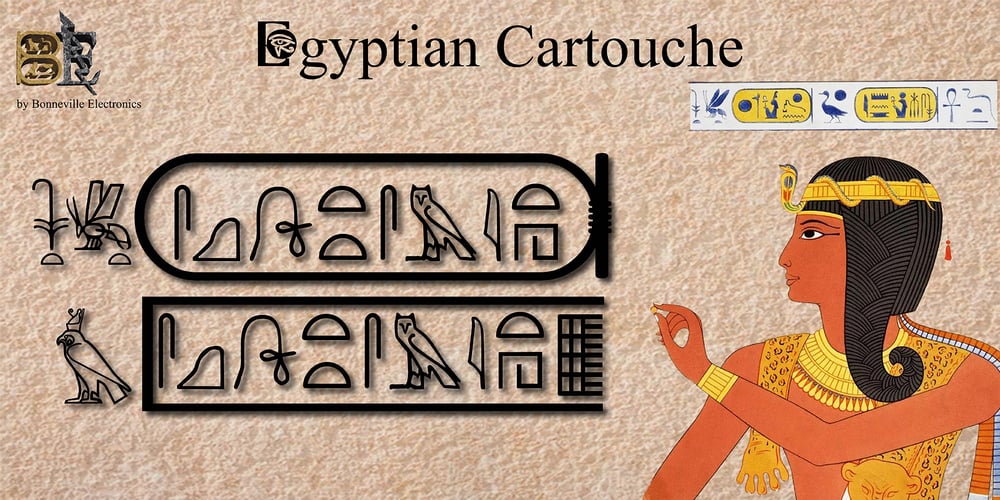
The Egyptian Project Font Family was designed by Scott T. Smith and published by Bonneville Electronics. The Egyptian Project contains 1 styles and family package options. Egyptian Cartouche is a set of various Egyptian fonts that correspond to the alphabet. Type on your keyboard < then = then a to get <=a On your monitor you will see <=aTo add more glyphs type = for another the above and below parts of the cartouche allowing you to add more characters.ZERO WIDTH character are used in fonts sets to allow you to print accent marks, vowel points or cartouche outside lines. They are typed in just before or after the affected character.i.e. type < then = then a to get <=a- Some Zero width character will not show until the adjacent one is typed The last part of the cartouche > a > or a # # Depending on the flavor of desired Cartouche. Add spaces where needed to adjust outer bracket spacing and character placement.